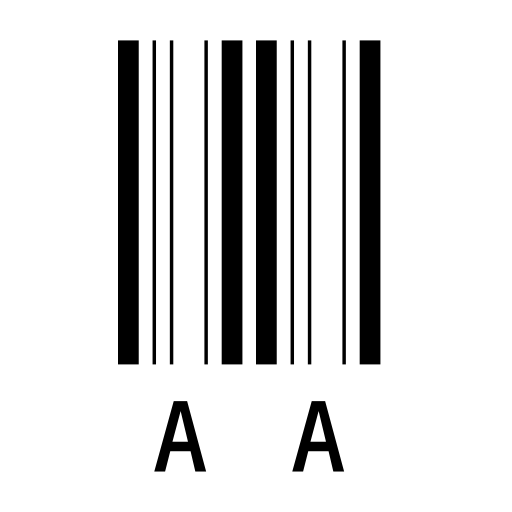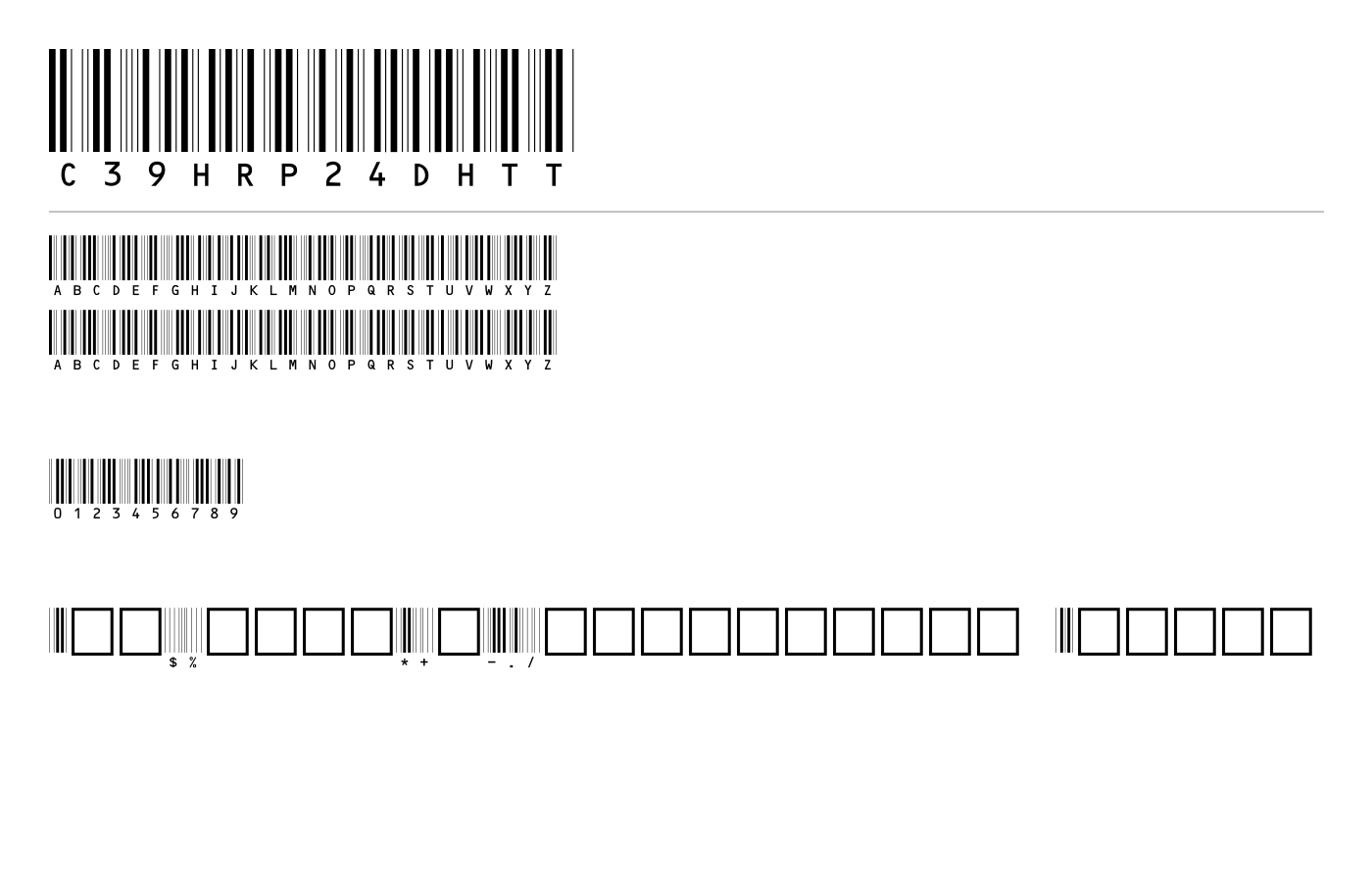
C39HrP24DhTt Font is a distinctive barcode-style typeface that merges alphanumeric characters with barcode elements, giving it a technical and industrial aesthetic. Its narrow, linear design with clean lines and consistent stroke widths creates a sense of precision and modernity, ideal for projects related to technology, logistics, or branding that requires a futuristic and utilitarian feel. This font works best for headlines, packaging, and design contexts where a strong, machine-inspired visual impact is desired.
C39HrP24DhTt Font